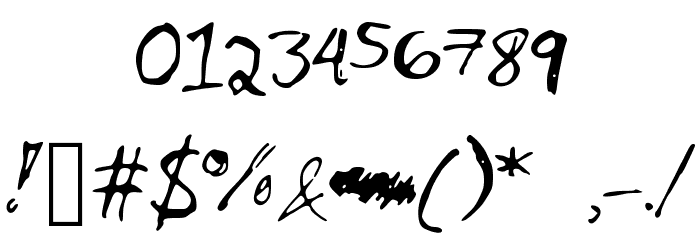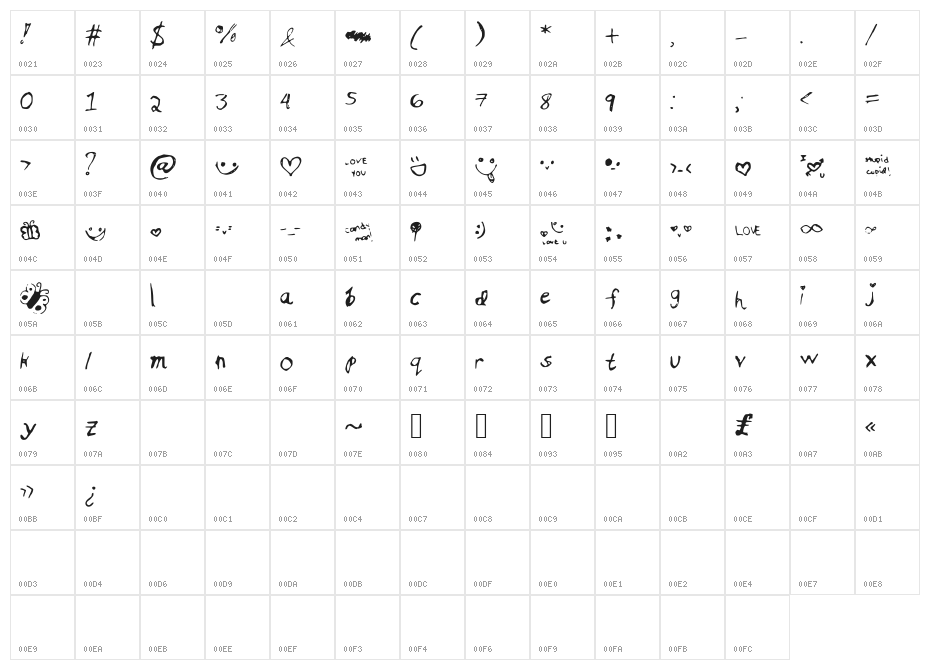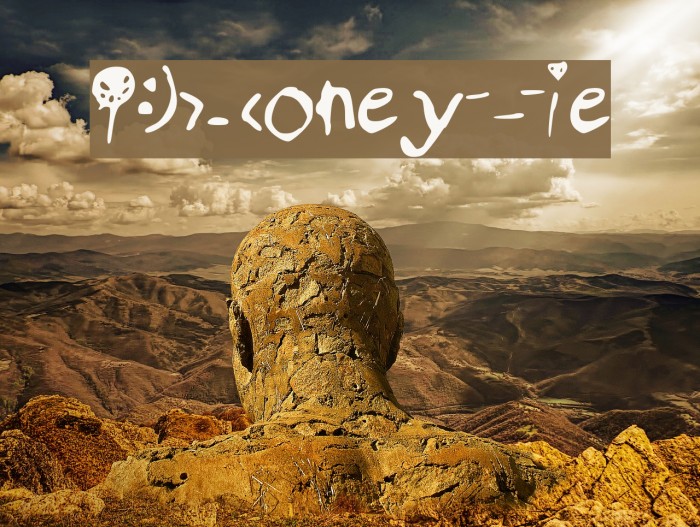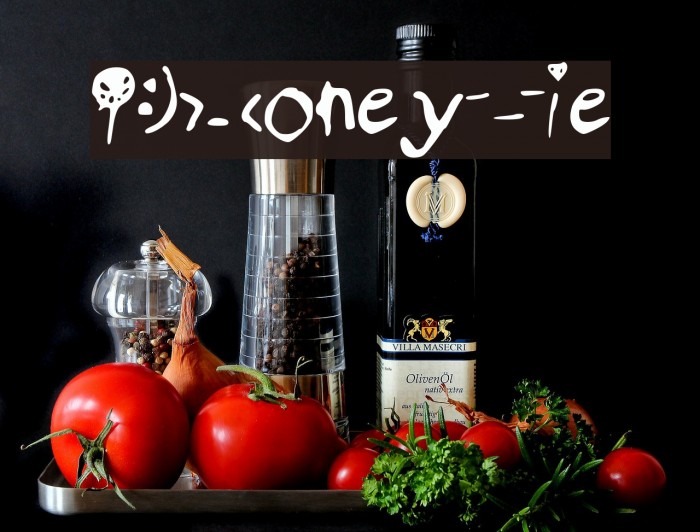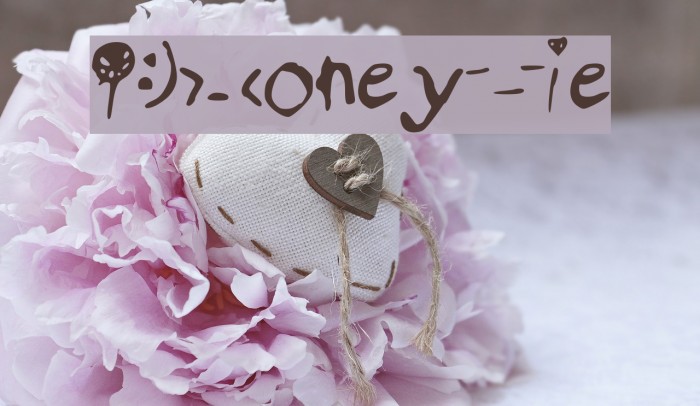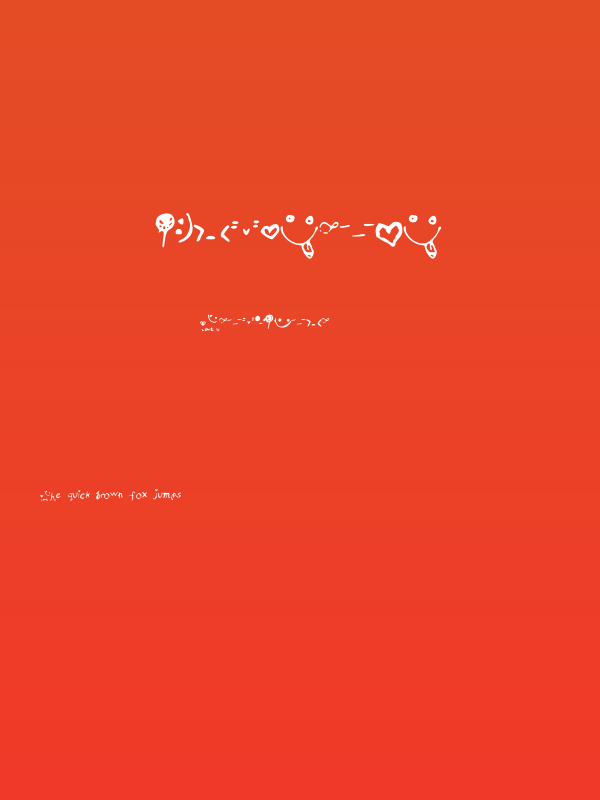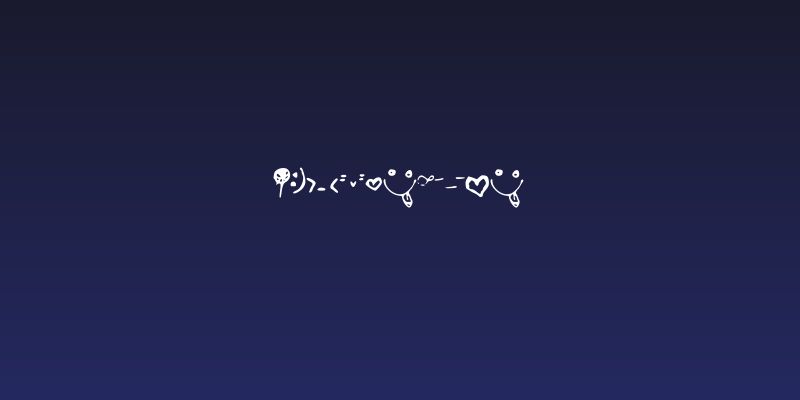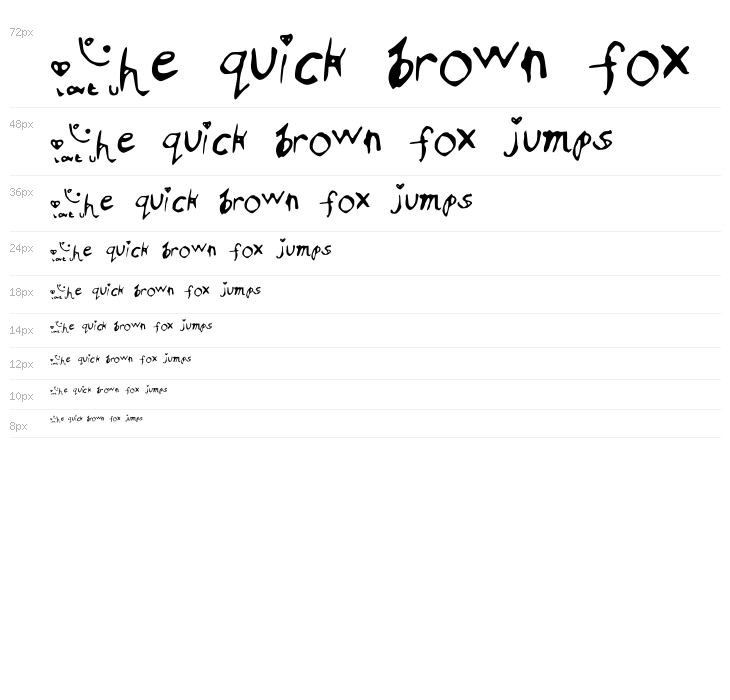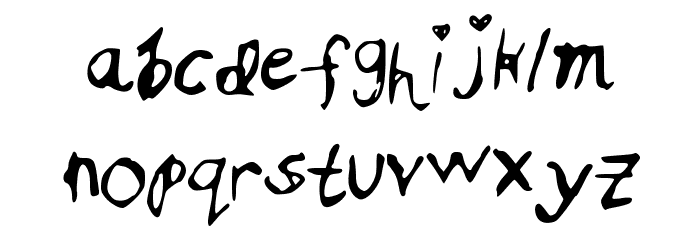
RSHoneyPie Font
RSHoneyPie Description
This playful and whimsical font features a handwritten style with a charming, informal appearance. The letters are slightly irregular, giving a personal and friendly touch. The font includes decorative elements such as hearts and smiley faces, adding to its playful nature. It is characterized by a medium contrast in stroke thickness, with some letters having unique embellishments. The numbers and special characters maintain the same lively and informal style, making it suitable for creative and fun projects.
| Proposed Projects | Ideal for greeting cards, children's books, playful branding, and informal invitations. |